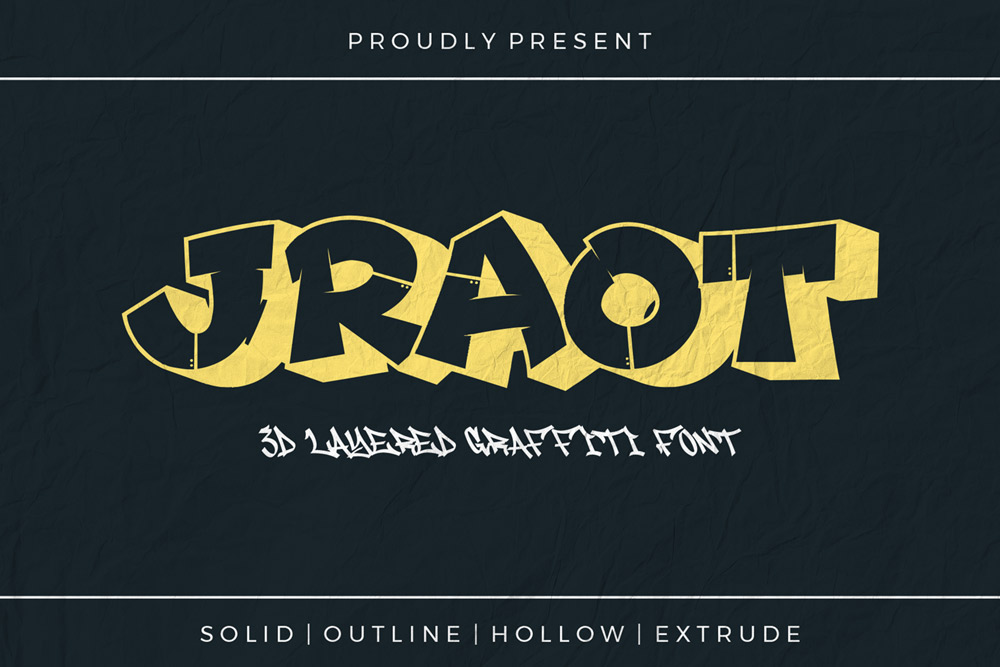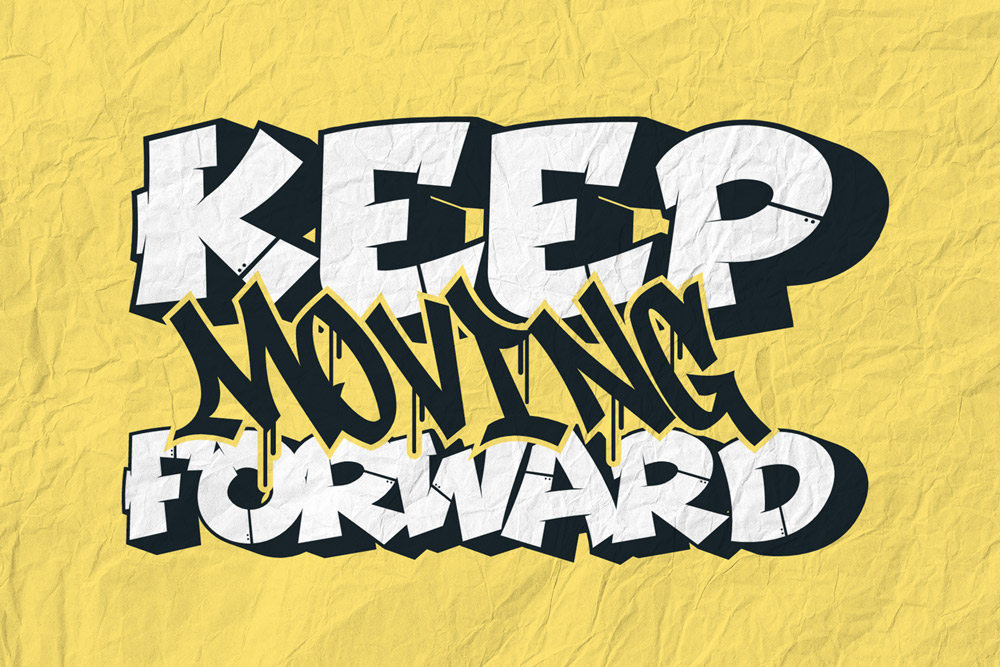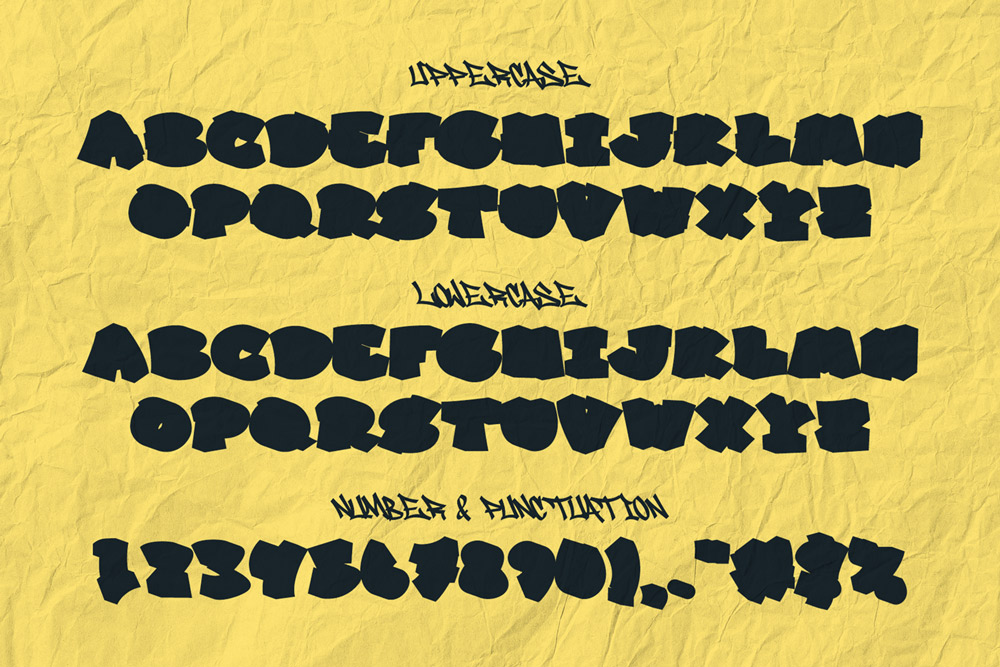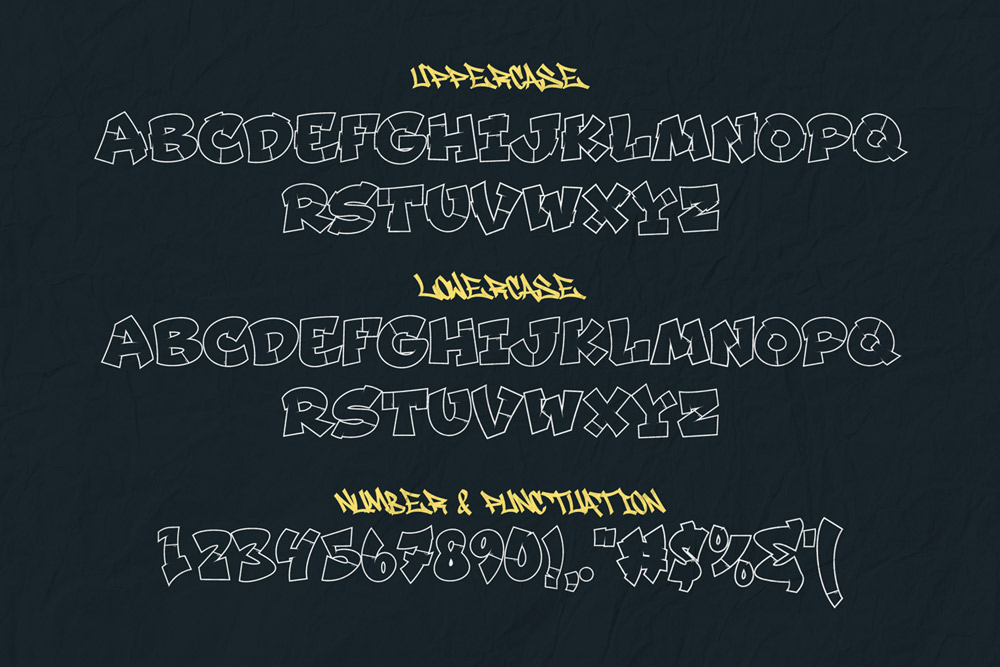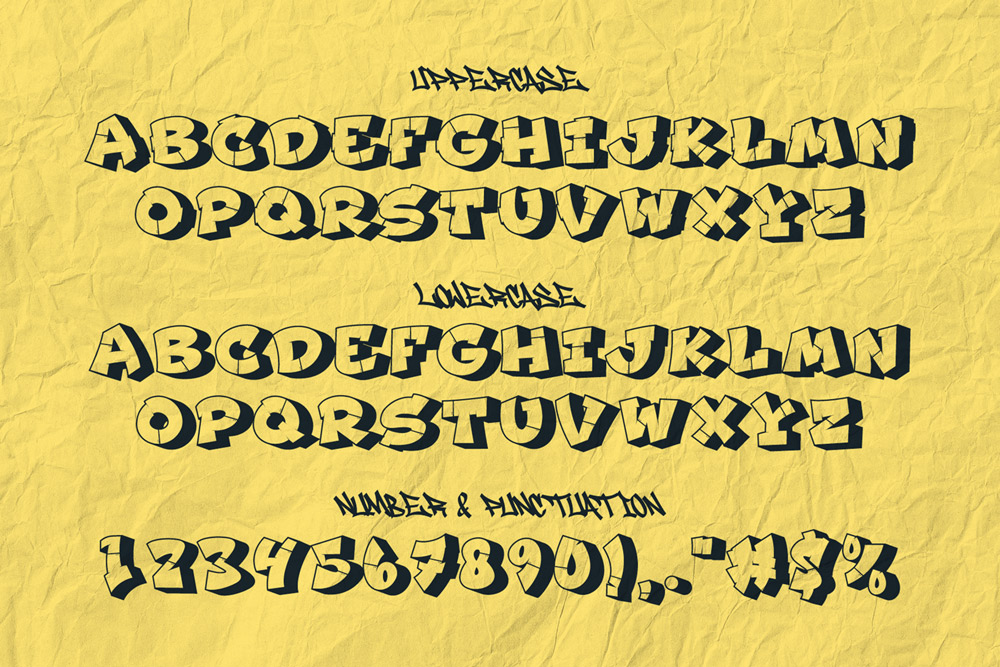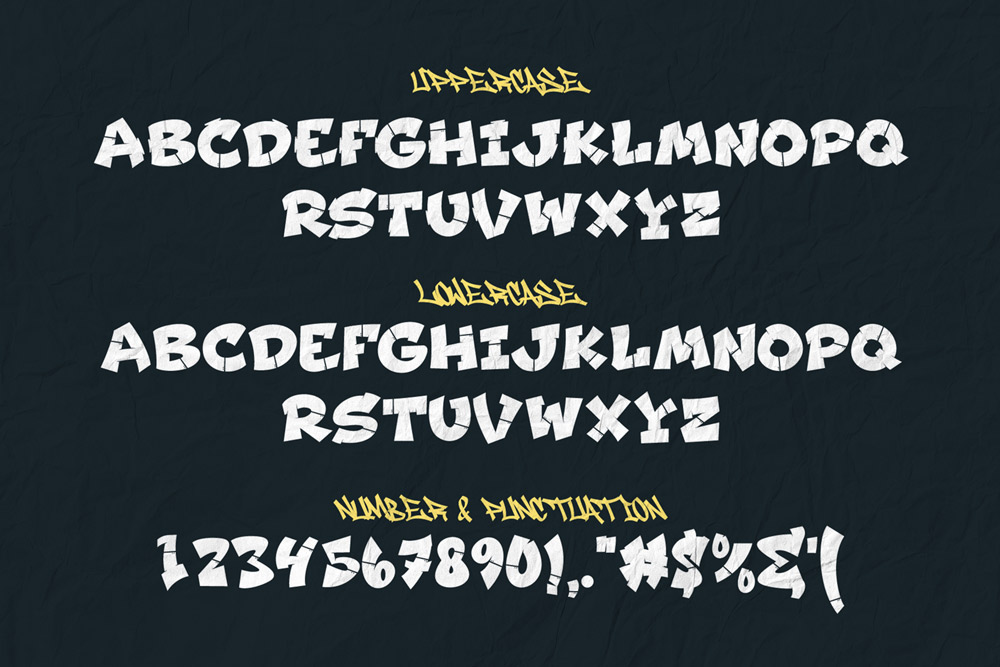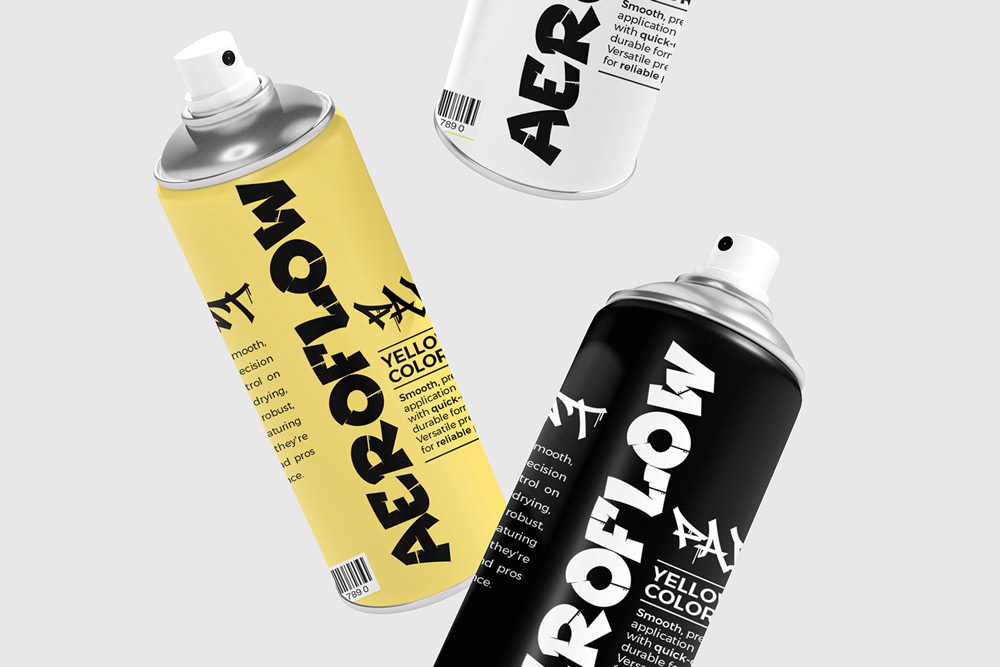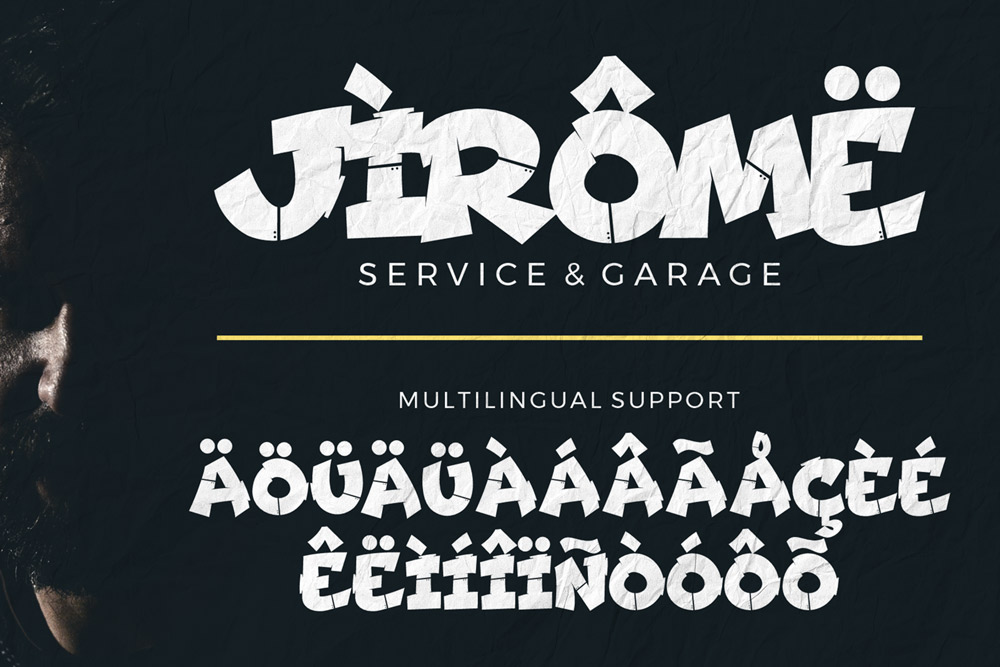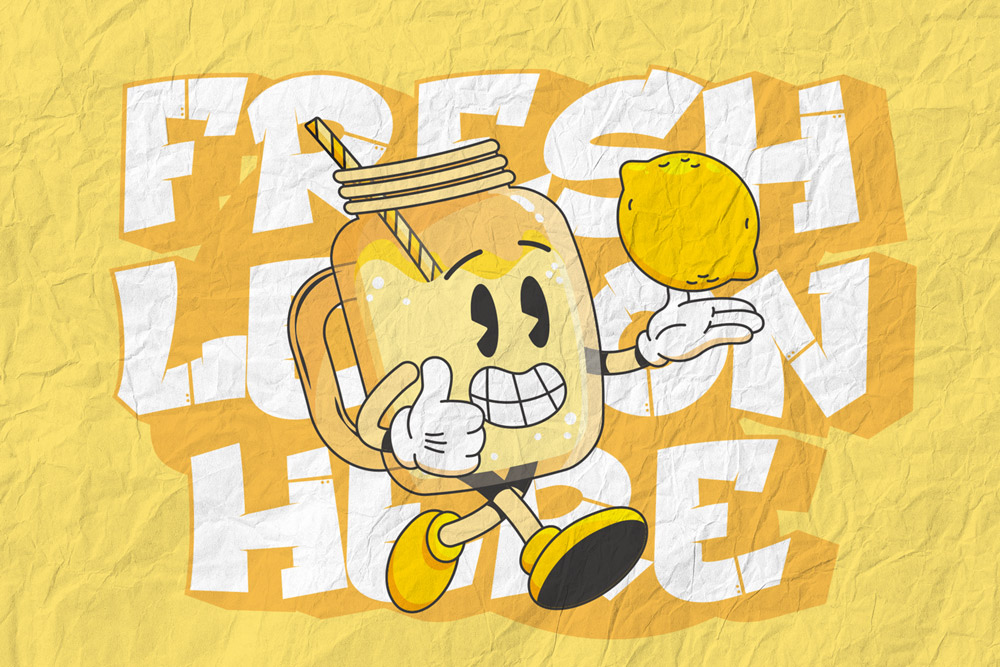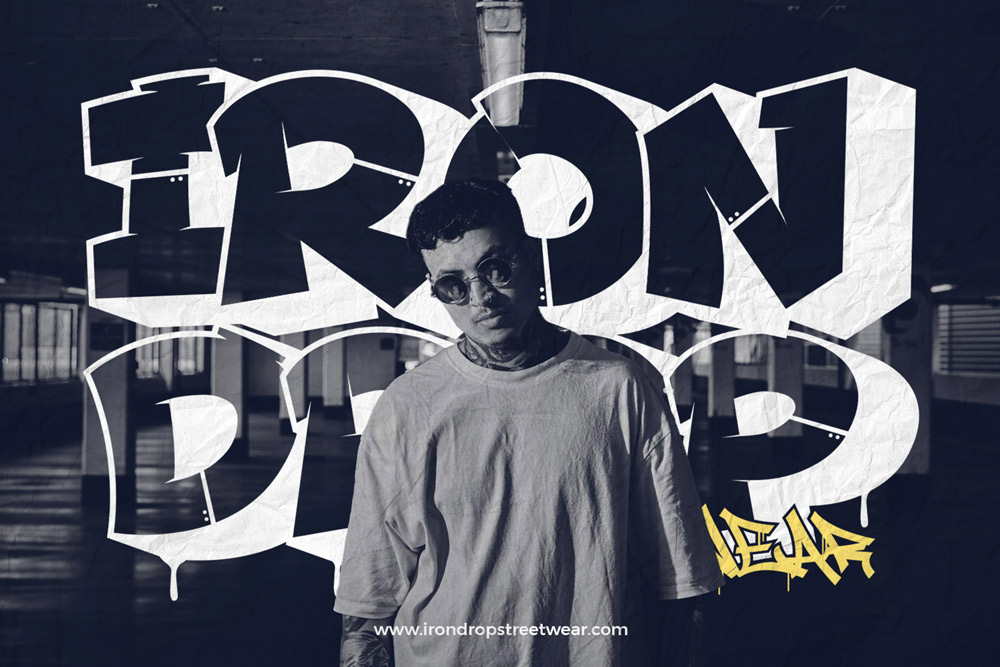
About Jraot
Bring Dimensional Energy to Your Designs with Jraot – A Decorative Graffiti Font Featuring 3D Styles and Uppercase & Lowercase Characters
Jraot is a bold and expressive 3D decorative graffiti font designed to inject powerful street culture energy into your design arsenal. With both uppercase and lowercase characters, Jraot offers versatility while staying true to its graffiti roots. This font isn’t just about bold letters—it’s about dimensional storytelling. Featuring four stylistic variations, Jraot gives designers a complete typographic system to create depth, layering, and movement.
Whether you’re crafting designs for urban clothing brands, music events, extreme sports, or digital art, Jraot delivers uncompromising personality and visual power.
Four Distinctive Styles in One Font Family
To give creators full creative control, Jraot comes in a robust 4-style pack:
Jraot Regular (OTF, TTF, WOFF) – The base version, ideal for standalone use or as a foundation
Jraot Hollow (OTF, TTF, WOFF) – A skeletal, airy style with negative space for punchy headlines
Jraot Outline (OTF, TTF, WOFF) – A clean vector-style version great for overlays and stroke-based artwork
Jraot Extrude (OTF, TTF, WOFF) – A 3D layered version that adds depth and realism to your designs
With this typographic arsenal, Jraot can be layered or used separately, depending on your visual goals. From eye-catching poster work to animated titles, this font family adapts.
Key Features That Set Jraot Apart
Uppercase & Lowercase Characters – Complete glyph set with a natural graffiti rhythm
Four Unique Styles Included – Regular, Hollow, Outline, and Extrude
Multilingual Support – Accents, characters, and symbols for multi-language use
Optimized for Layering – Combine styles for stunning 3D graffiti effects
Each style has been crafted with intention—allowing designers to create dimensional graffiti designs that feel modern, bold, and urban.
Why Designers Choose Jraot
Designers love Jraot because it’s not just a typeface—it’s a creative toolkit. It allows for experimentation with depth, shadow, and color without needing 3D software. You can manually layer the extrude version over the regular or combine the outline with the hollow to create compelling, dynamic type compositions.
Additionally, Jraot’s blend of uppercase and lowercase characters allows for typographic contrast, which is uncommon in graffiti-style fonts. This gives designers more control over hierarchy and voice in layout.
Jraot also stands out for its street-smart authenticity. Each letter feels hand-drawn and organic, yet precisely structured—making it perfect for both commercial and artistic projects. From album covers to sports apparel, this font turns words into graphic artwork.
Where to Use Jraot
Because of its 3D styling, graffiti edge, and multilingual support, Jraot works across a wide range of projects:
Streetwear Branding – Logo design, garment prints, clothing tags
Music & Event Promotions – Album covers, DJ flyers, festival posters
Extreme Sports – Skateboard graphics, surfwear, biking stickers
Urban Art Projects – Murals, zines, digital collages
Social Media Content – YouTube intros, thumbnail text, reels design
Gaming and Esports – Titles, interface overlays, stream branding
Jraot’s Multilingual Power
One of Jraot’s key strengths is full multilingual support. This means your graffiti design won’t just speak in one voice—it can speak to the world. The font includes accented characters, special punctuation, and symbols that support a broad range of Latin-based languages.
Whether you’re designing for a Spanish streetwear label, a French hip-hop brand, or a global NFT drop, Jraot can communicate your visual message across cultures.
Use Jraot to dominate attention, claim visual territory, and speak in bold colors. Its multi-layered structure and wild personality turn everyday headlines into street-level expressions of creativity. If you’re building a brand, a vibe, or a visual identity that’s edgy, loud, and unforgettable—Jraot is your type weapon of choice.